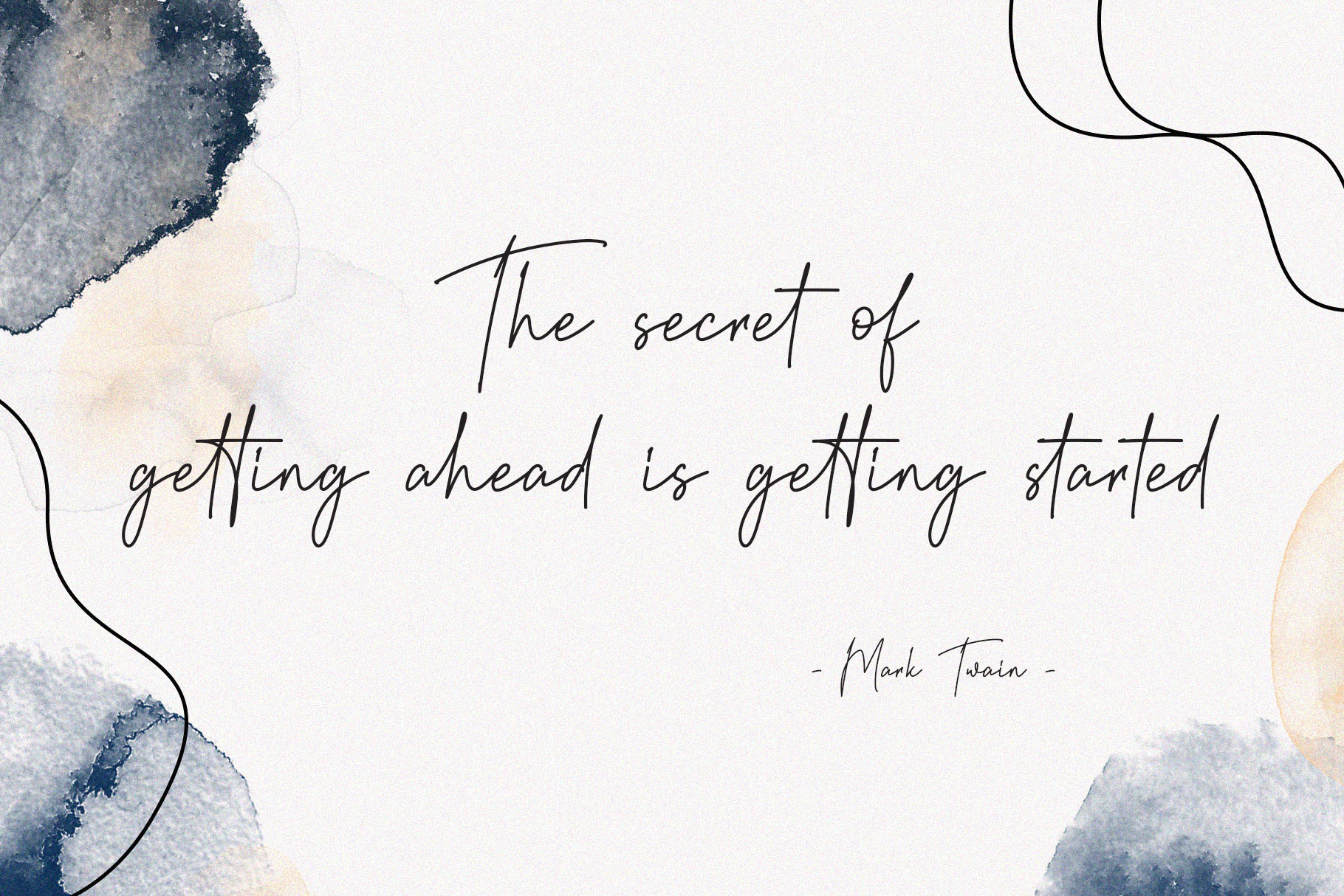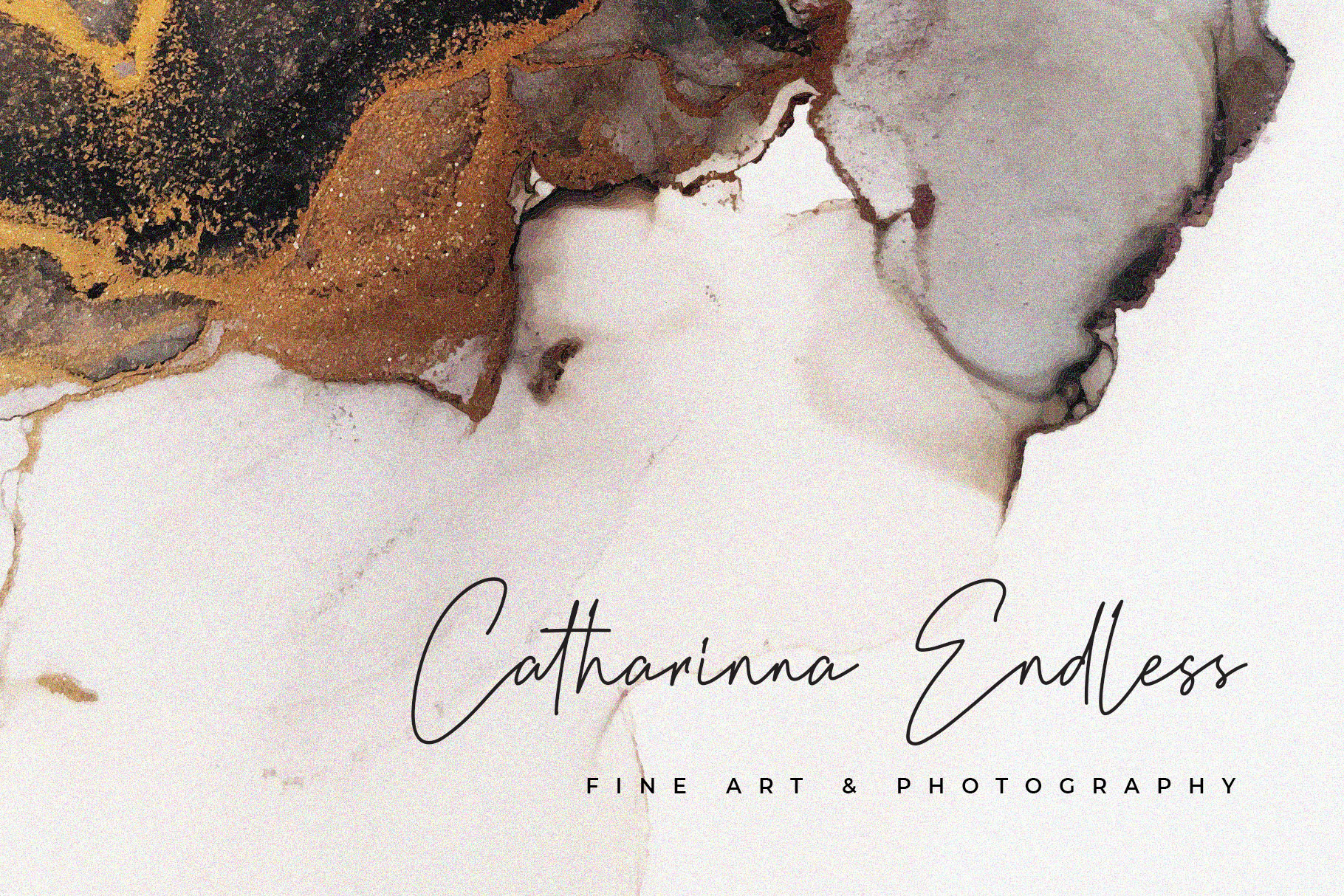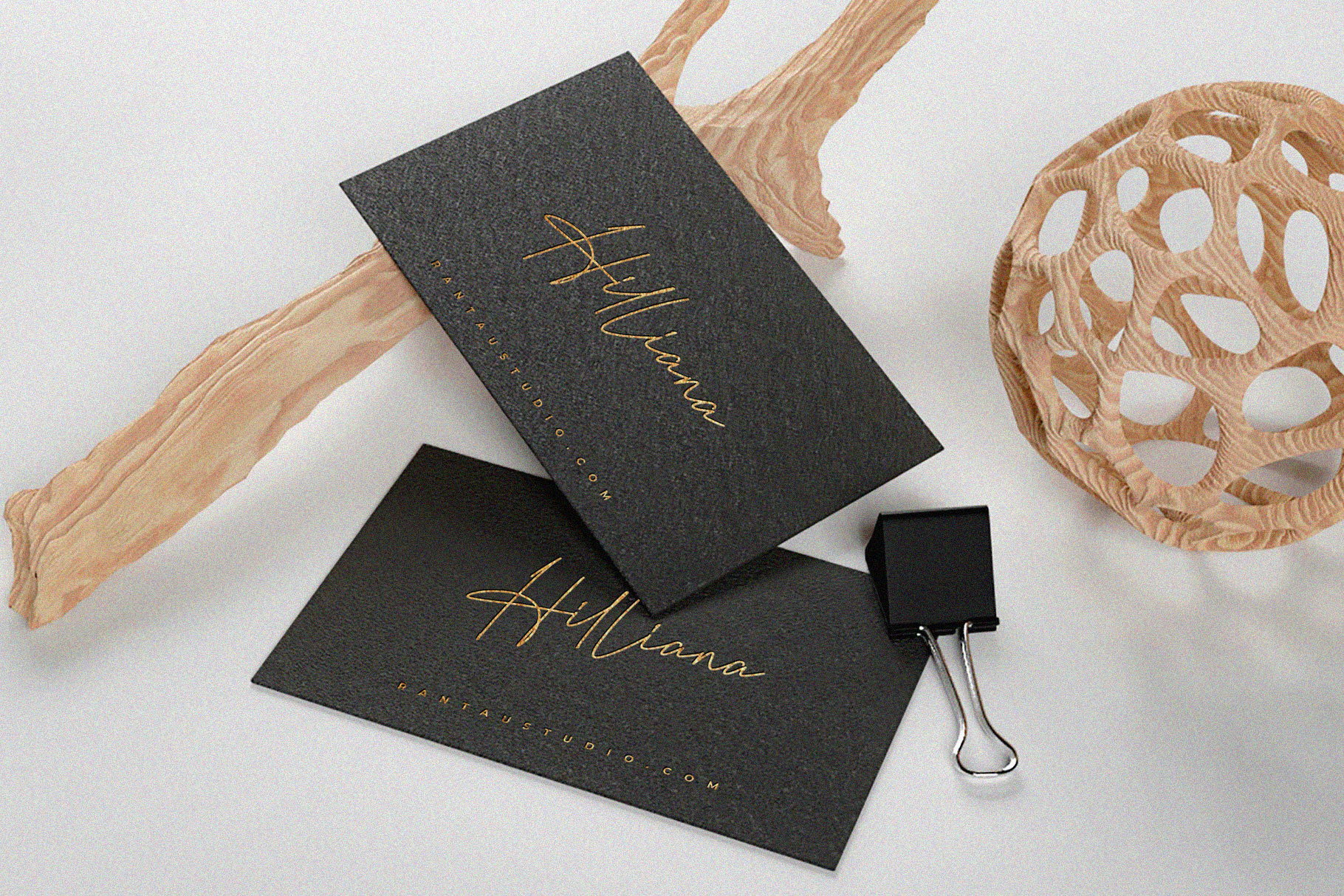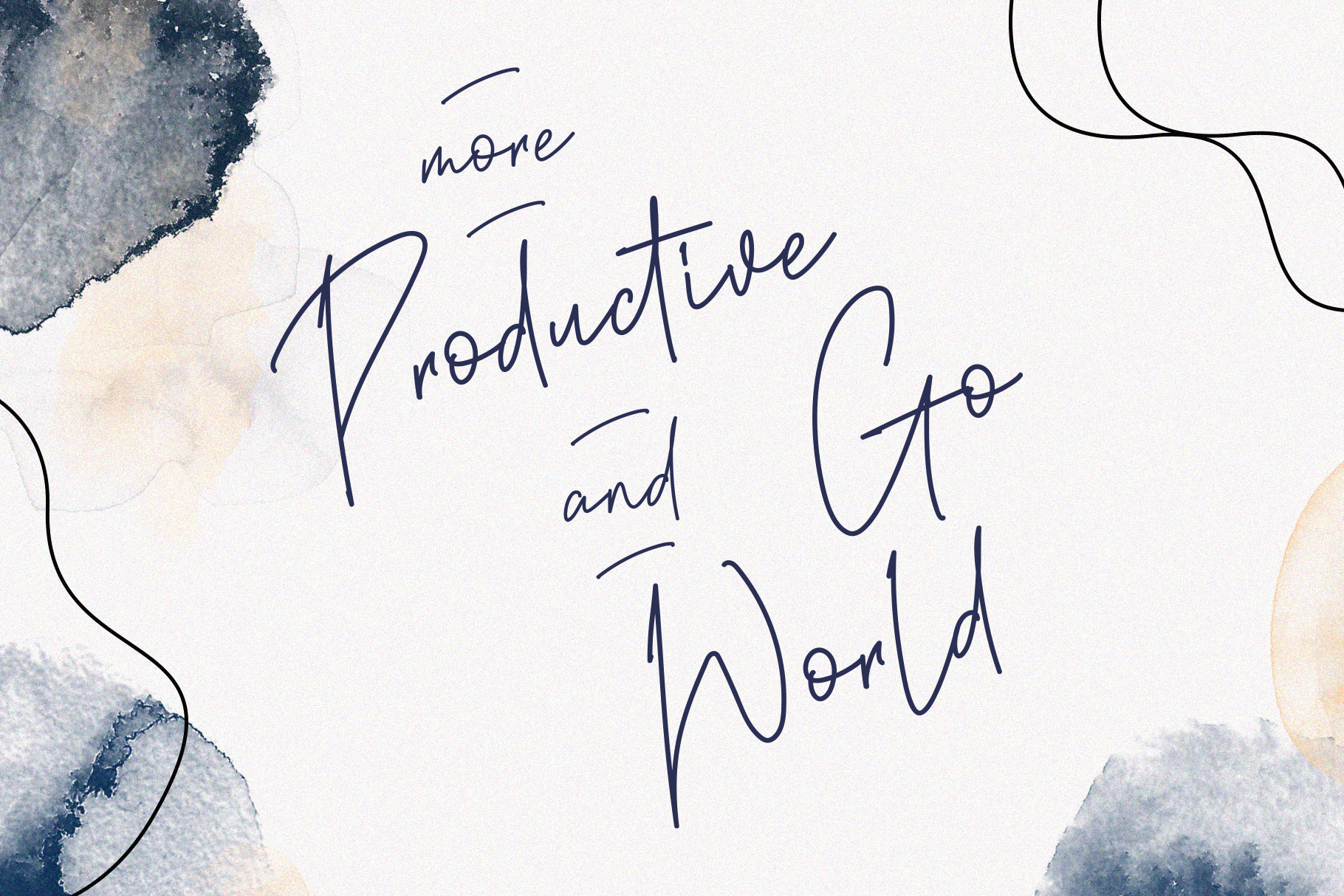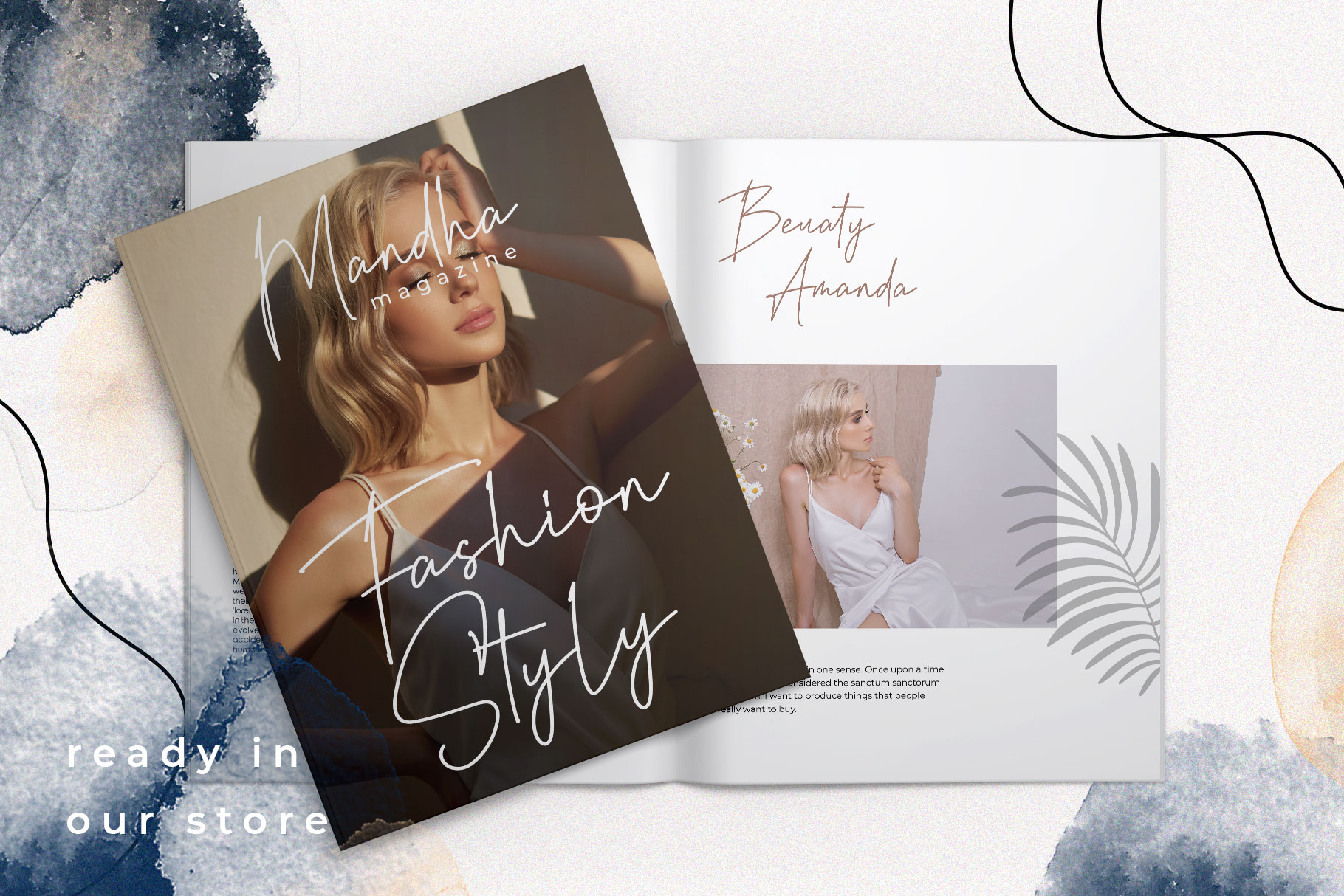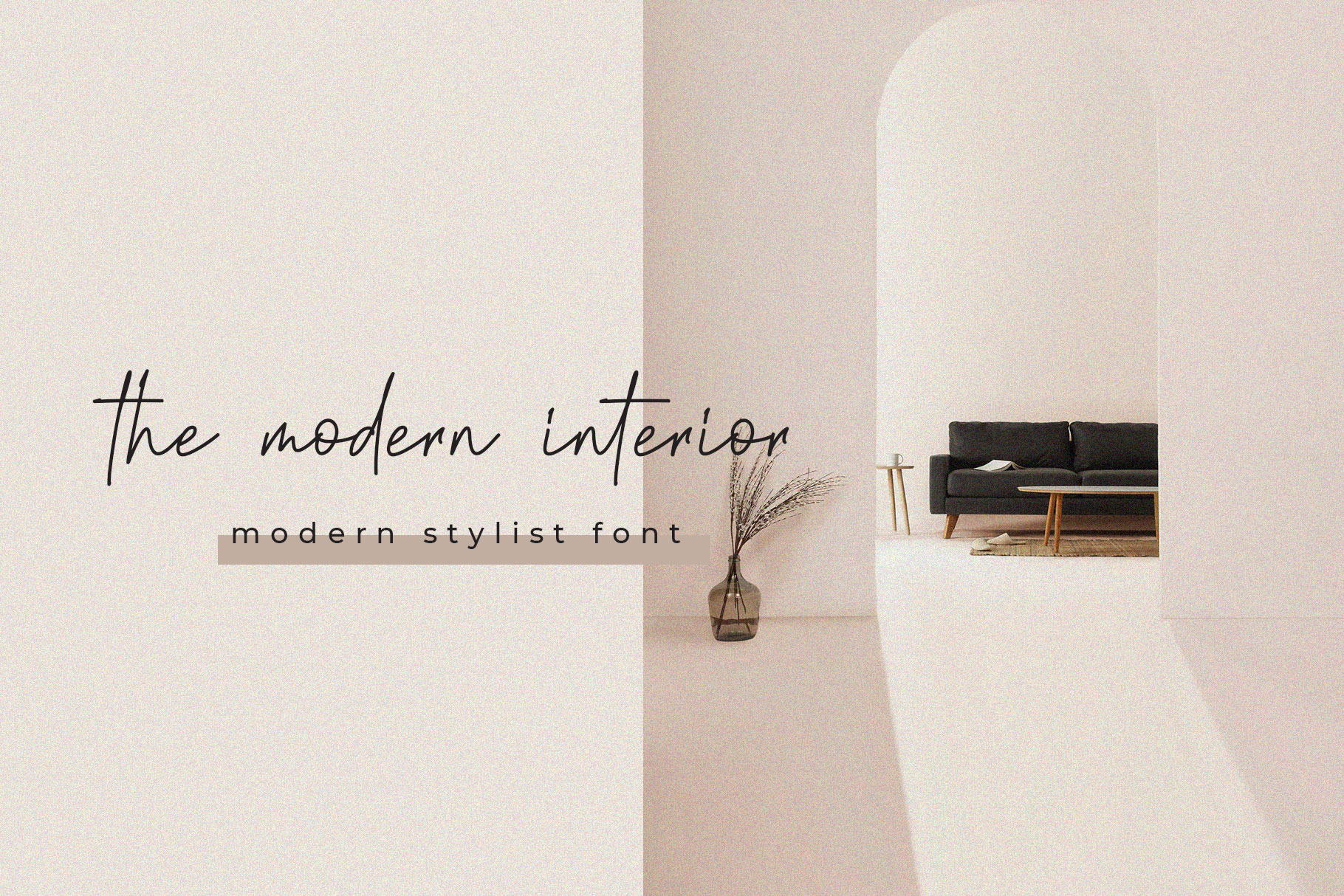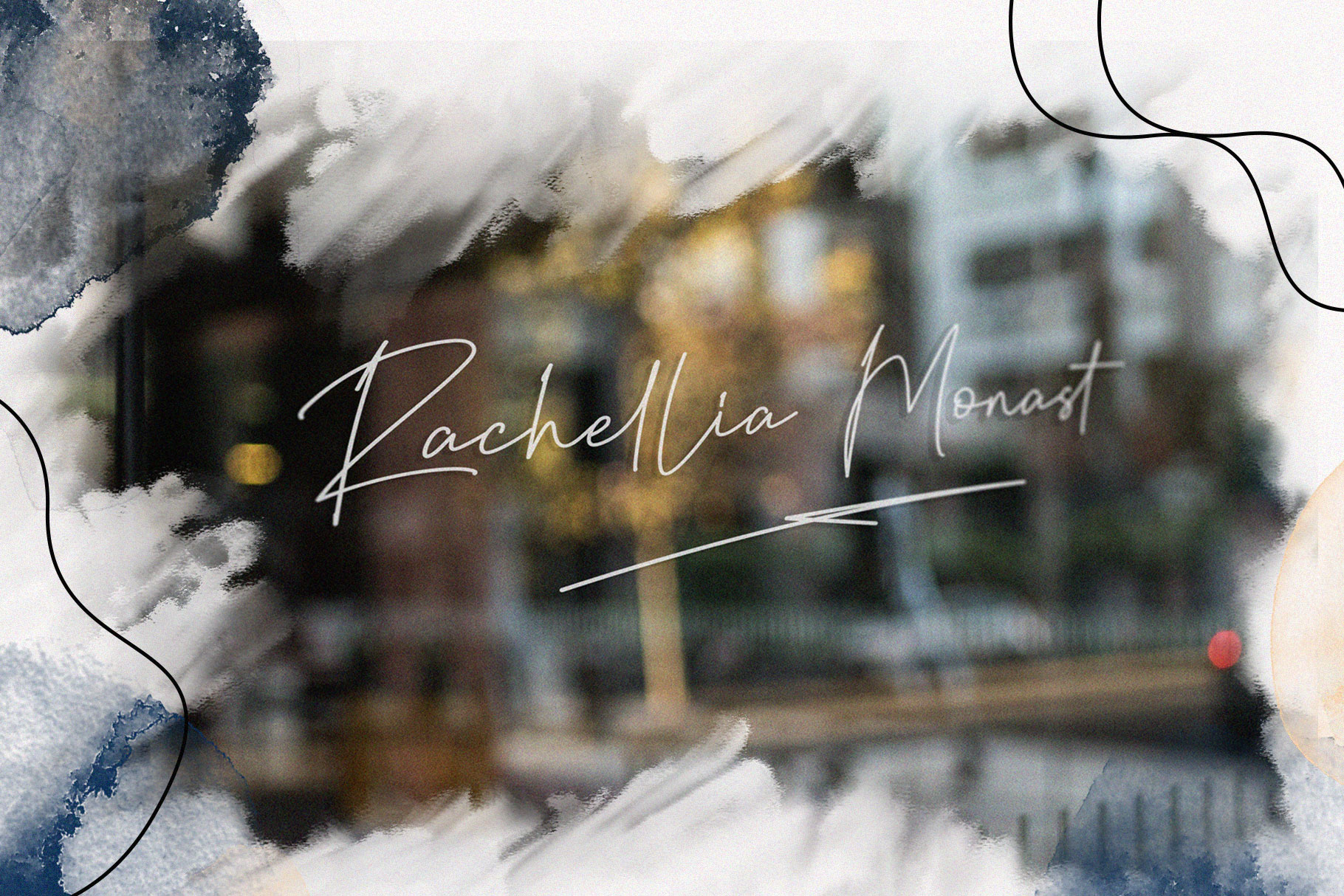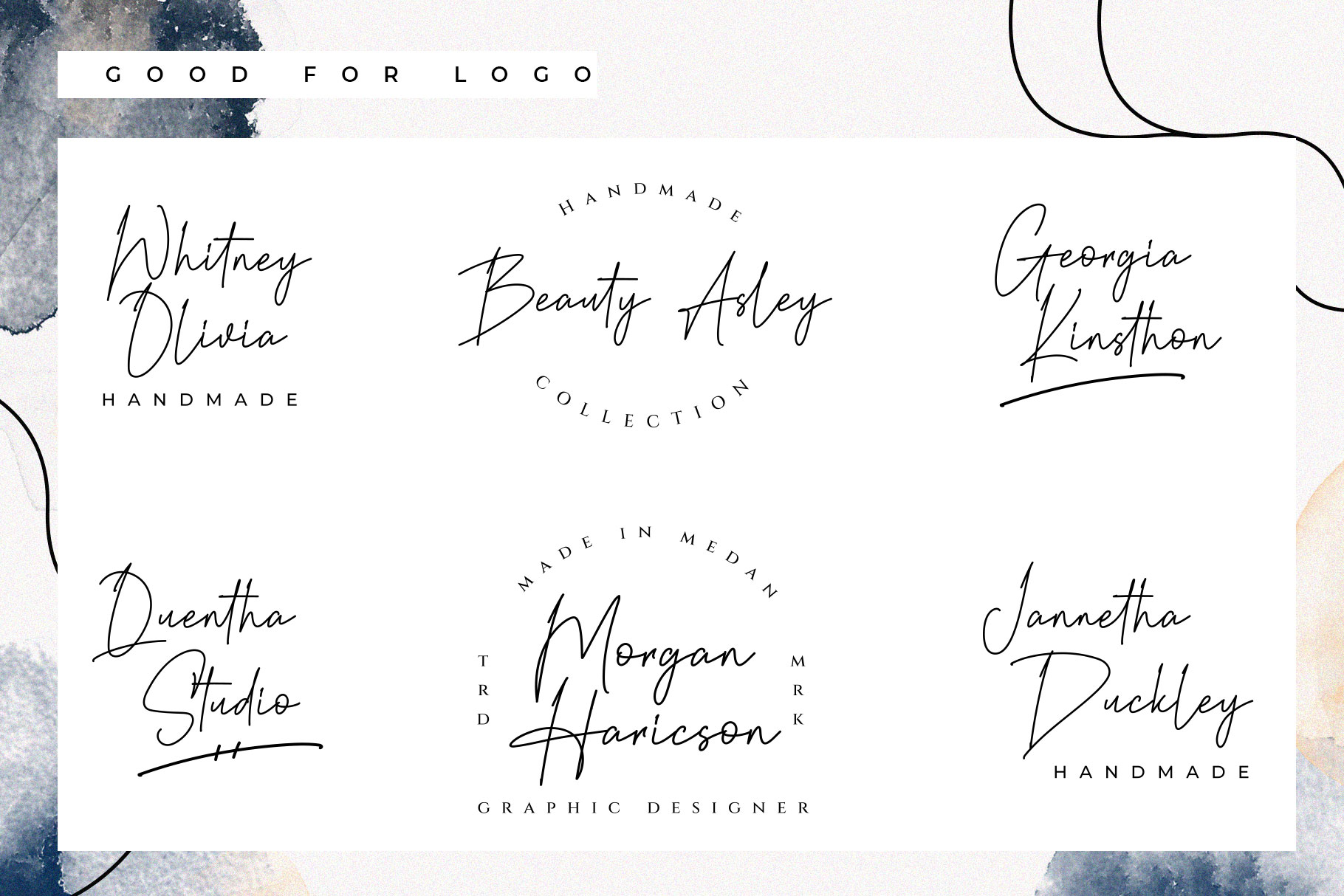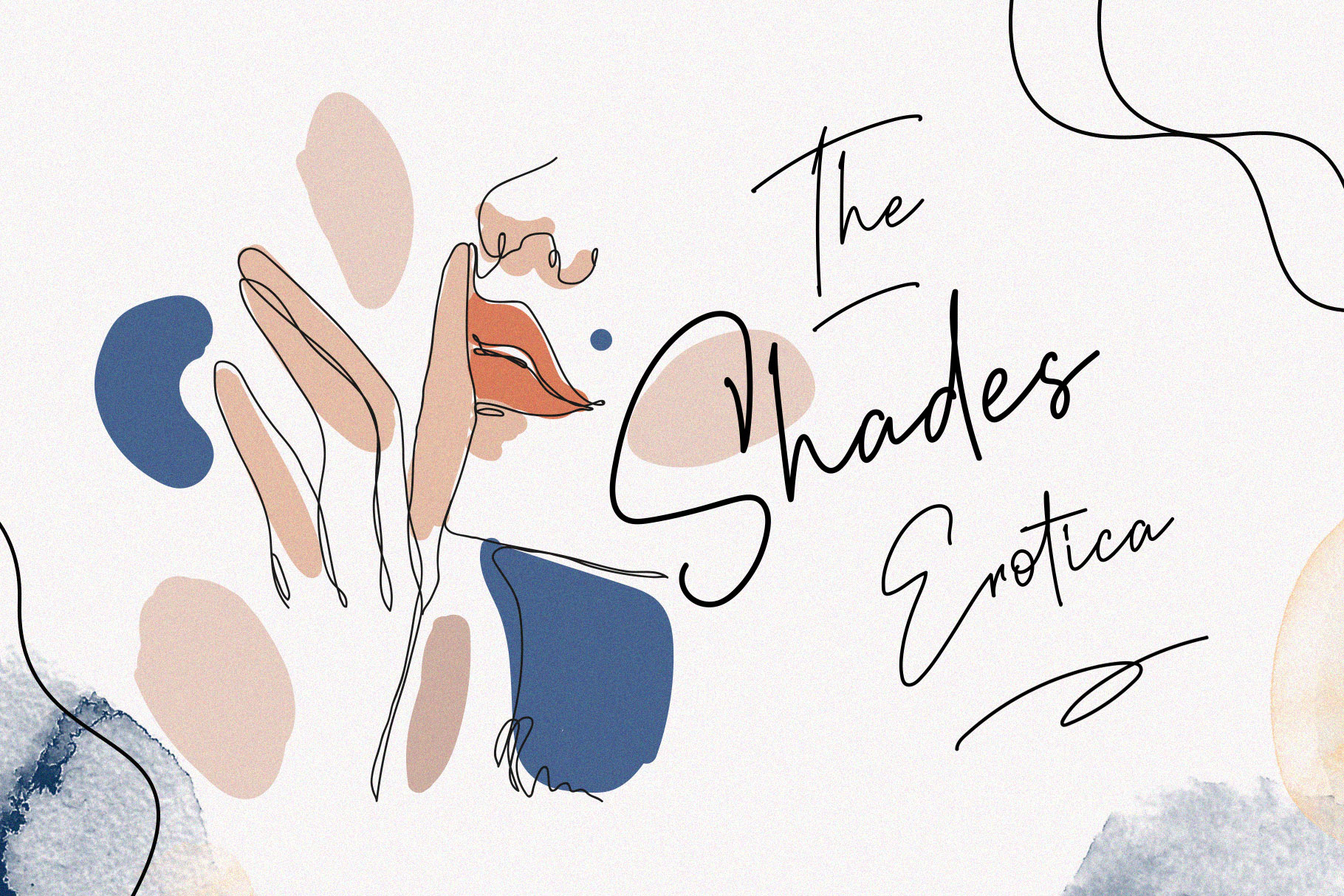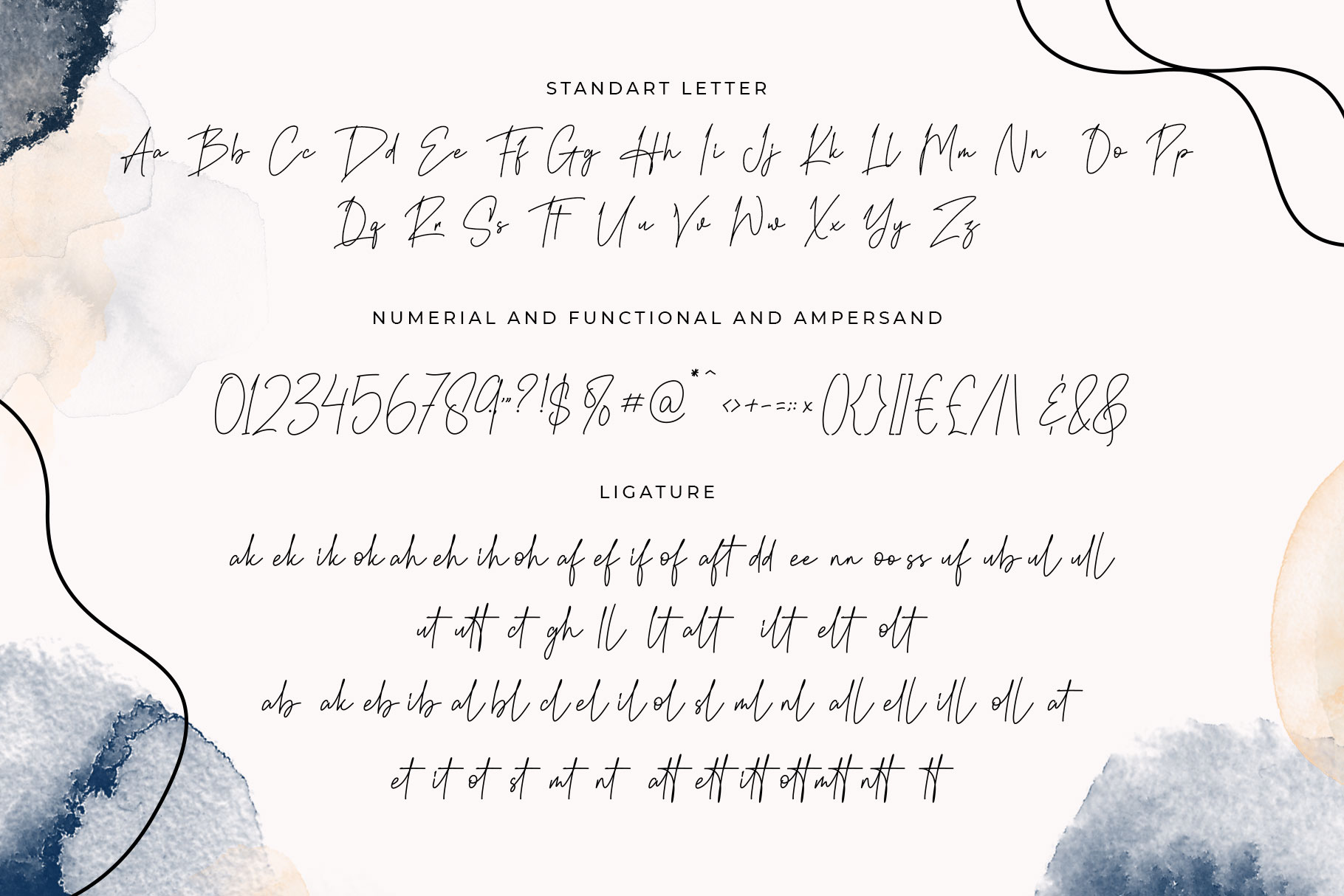
The Rightness Stylish font
The Rightness is casual and simple style which can be interpreted professional. we keep this font looks premium, modern, readable, stylish, elegant, catchy and easy to use with more ligature . The Rightness also have a catchword in different font and swash so you can use it to make you design awesome.  The Rightness is the great choice for watermark on photography, signature or signature logo design, quotes, album cover, magazine, business card and many other design project. The Rightness here to make your work to high level!!!
• Catchword and Swash